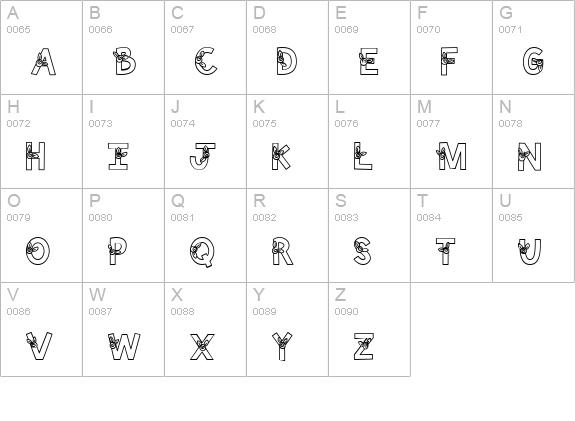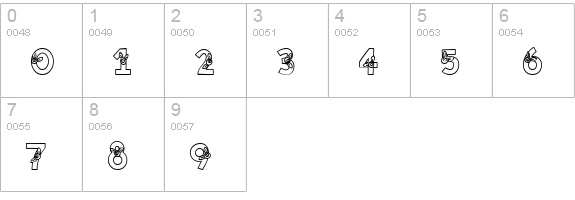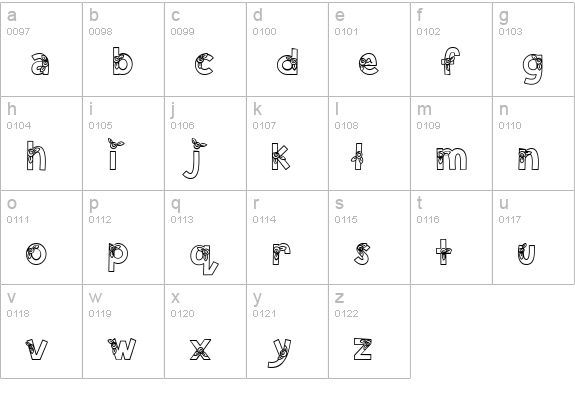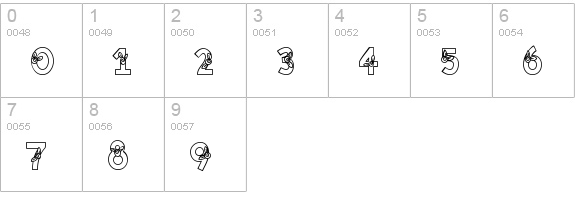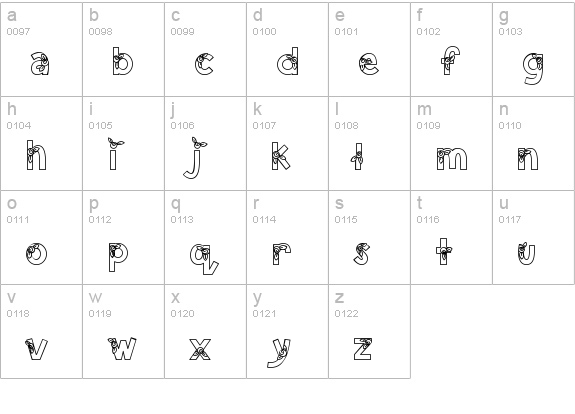
CK Block Rose Font Details
CK Block Rose font is a modern and stylish typeface that exudes elegance and sophistication. Its bold and geometric design makes it perfect for a wide range of design projects, from logos to branding to social media graphics. The font features clean lines and a unique blocky style that is sure to make your text stand out. What's even better is that CK Block Rose font is completely free to download! You can easily access this stunning font at FontsMarket.com, where you can download it and start using it in your projects right away. Don't miss out on this fantastic opportunity to enhance your designs with the striking beauty of CK Block Rose font.